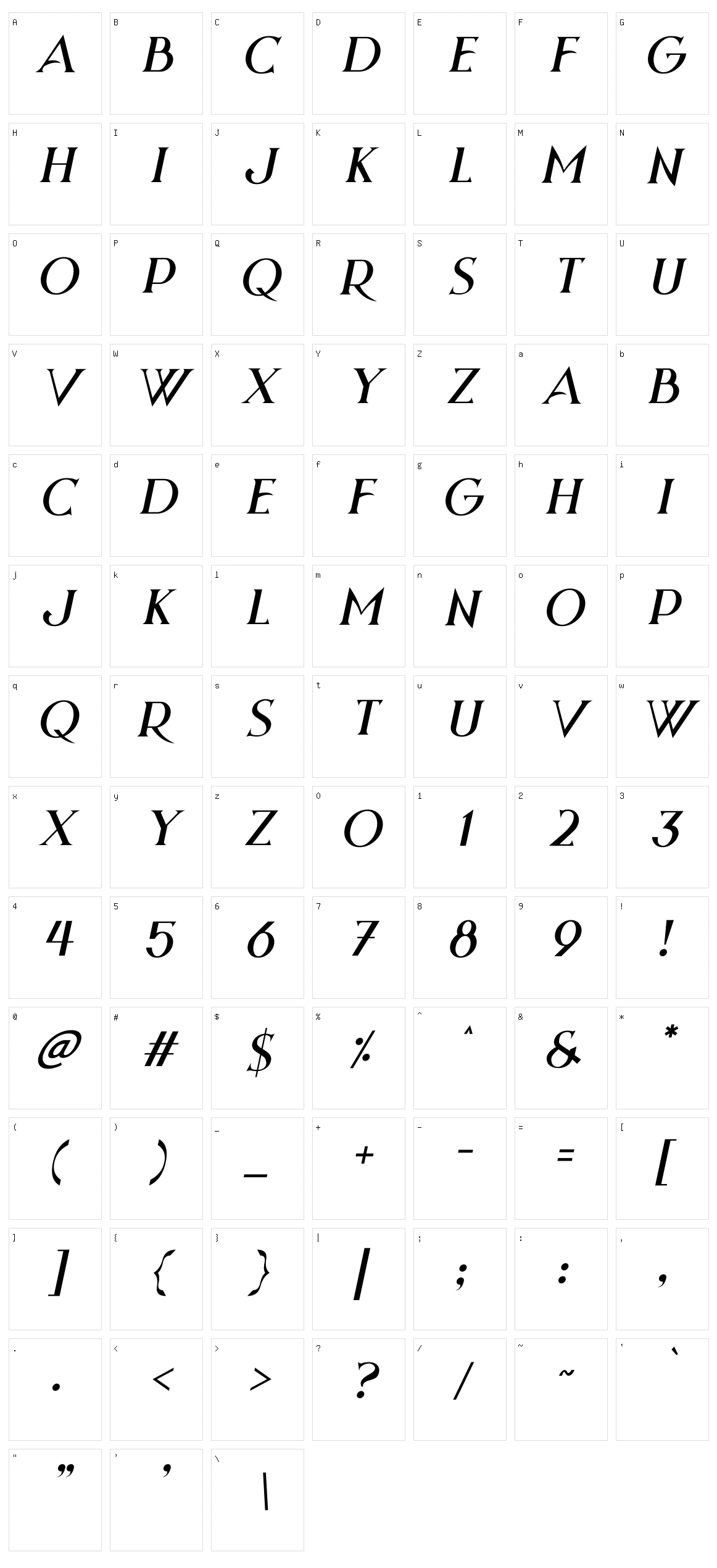
Strange Dreams
Designed by: Hawtpixel
Description: The free font Strange Dreams is carefully designed by Hawtpixel, showcasing a thoughtful balance of creativity and usability and belongs to the Gothic font family. When you download the ZIP file, it contains only 85.55 KB of font files, making it lightweight and quick to download. Please review the license details below to understand permitted usage and distribution rights. If license information is not available, we recommend using this font for personal projects only or contacting the author directly for commercial usage permissions.